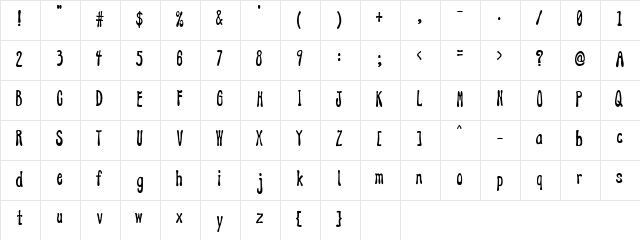
AddJazz Regular
Design Context for AddJazz Typeface
AddJazz takes a measured approach to typography — its balanced proportions and neutral character make it a reliable workhorse for both digital and print work.
Pro Tip: Pair AddJazz with a font of contrasting weight or personality to build a more expressive typographic hierarchy.